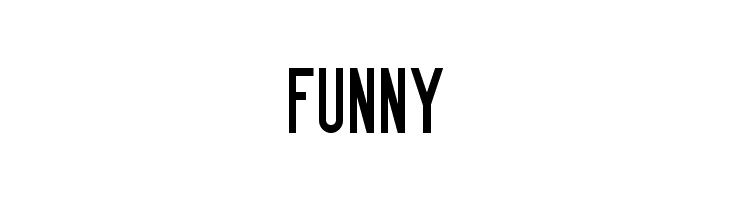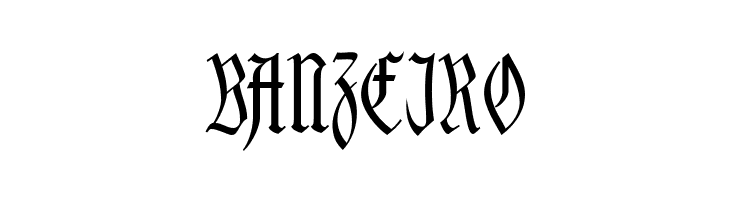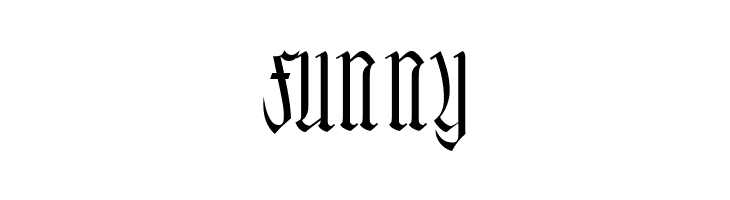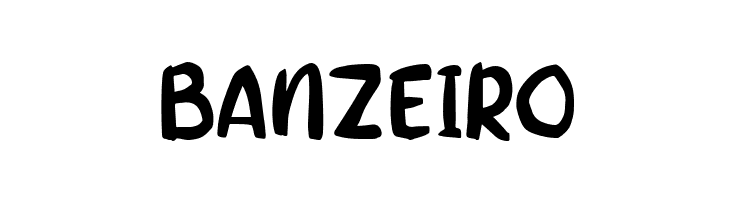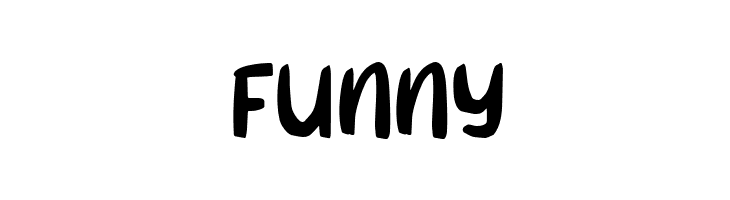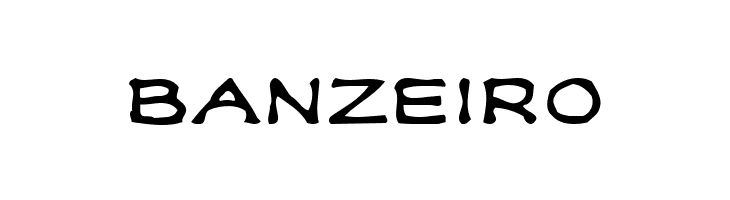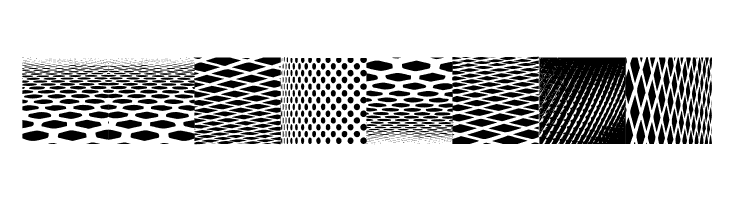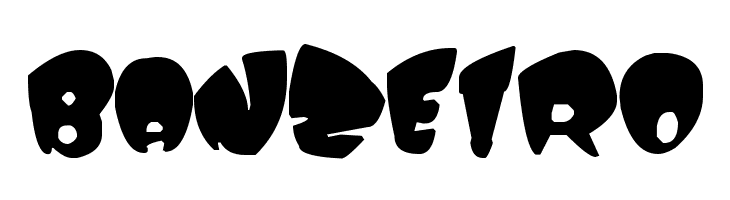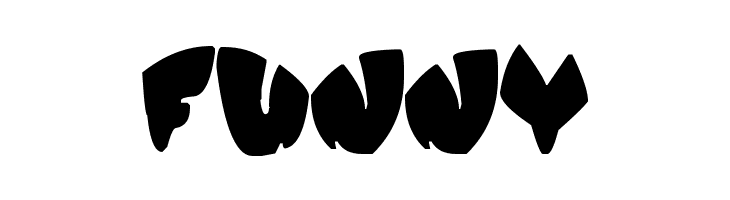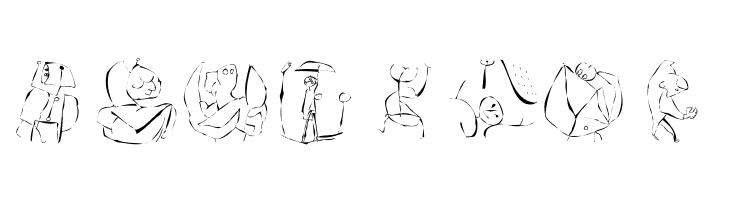
• Kitchen police
A bold, angular font with a geometric and modern style.
• Kitten Days Free Regular
A playful, handwritten font with bold, rounded characters.
• Kitty Weed
A playful, bold font with a whimsical, hand-drawn style and chunky, irregular shapes.
• KKBahn
A bold, modern sans-serif font with a slightly condensed style.
• KL1_ Monocase Serif
A classic serif font with a modern touch, featuring elegant curves and flared serifs.
• KL1MonoSansInvers
A bold, geometric sans-serif font with a monospaced appearance.
• KLabyrinths
An ornamental display font with each character depicted as a unique labyrinth or maze.
• KLArtIFacts
A pictorial, artifact-inspired decorative font with unique glyphs for each character.
• Klats
Abstract, ornamental symbol font with geometric and organic motifs.
• Klee CapScript
A playful, artistic script font with fluid, connected letterforms and medium contrast.
• Kleerikale
An abstract, artistic font with whimsical, illustrative characters.
• KleerikaleConBlack
An artistic and abstract font with unique illustrations for each character.
• KleeriKaleRRound
An artistic and whimsical decorative font with abstract character designs.
• KleidosChaplina
A geometric and abstract decorative font with high contrast and dynamic style.
• KleinBricksNegative
A decorative, geometric font with bold, angular shapes and unique patterns.
• KleinHeadline-BoldOblique
A bold, oblique font with a modern and dynamic style.
• Kleinigkeiten
A whimsical, decorative font with cartoon-like, hand-drawn characters.
• KleinKallig
A dynamic, calligraphic font with bold, angular strokes and artistic flair.
• KleinKarpets
Abstract, optical illusion-inspired decorative font with warped geometric patterns.
• Kleinkeys
A playful, 3D computer key-inspired font with a nostalgic tech vibe.
• Kleins Dancing Slapzerif